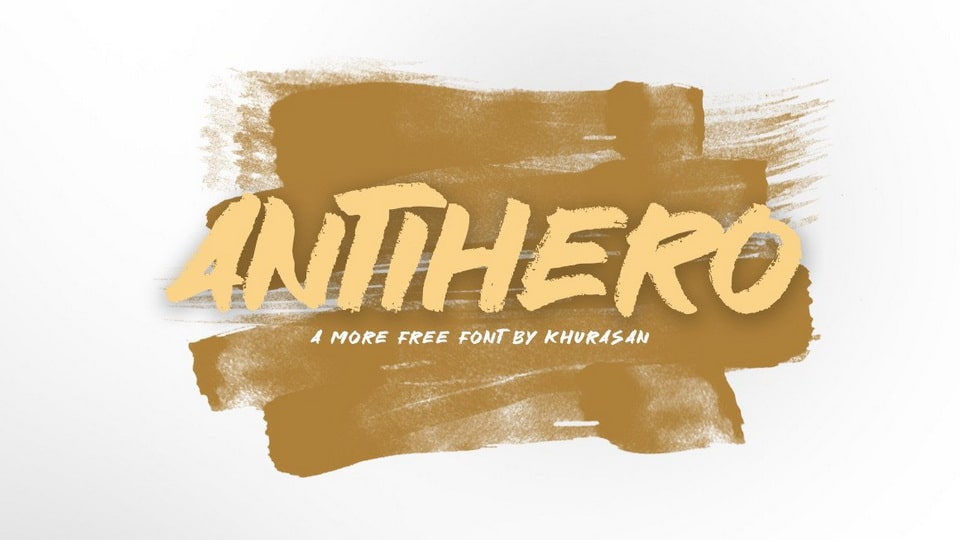
Download Antihero font, a bold and fancy hand painted brush typeface. With its textured look Antihero font is perfect for posters, logos, magazines, book covers, banners, and many more.